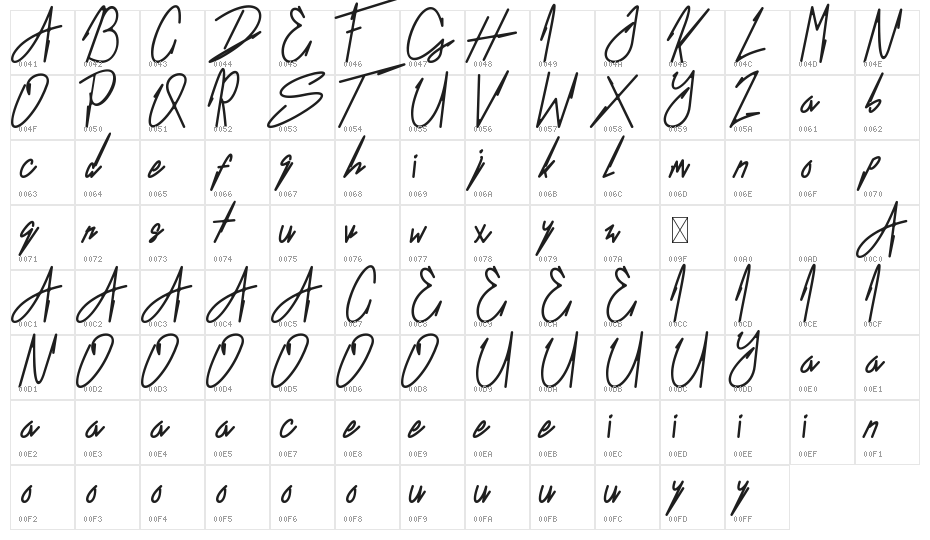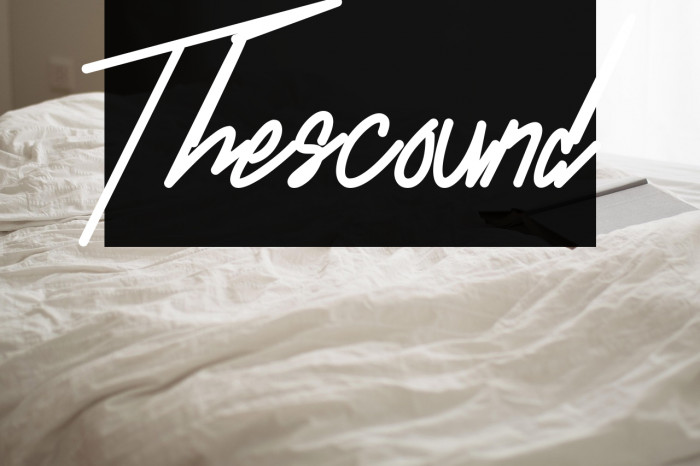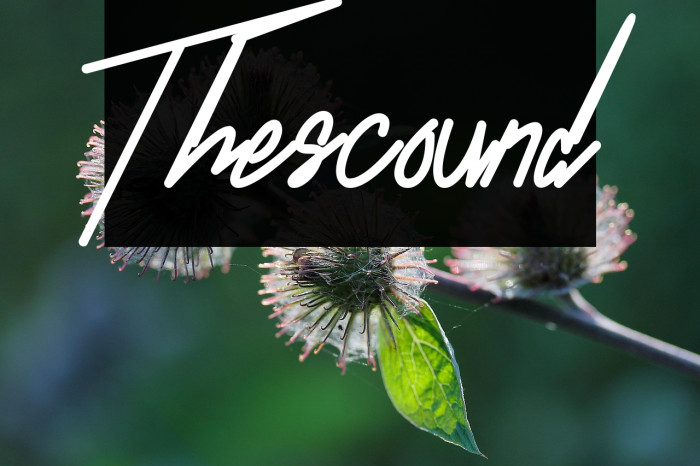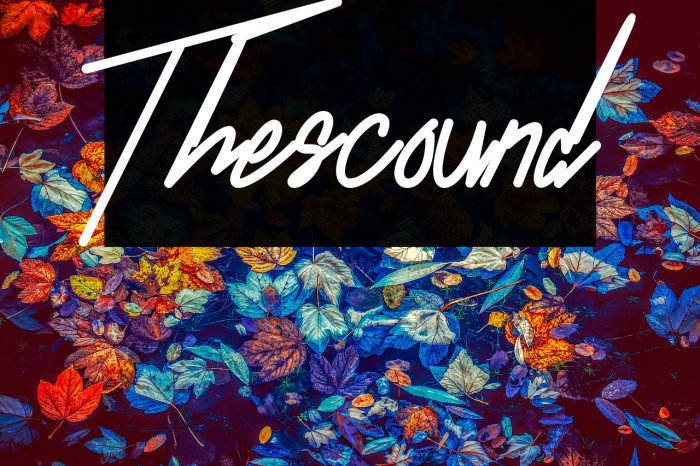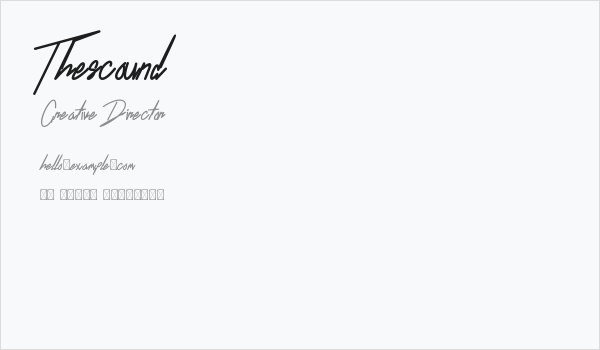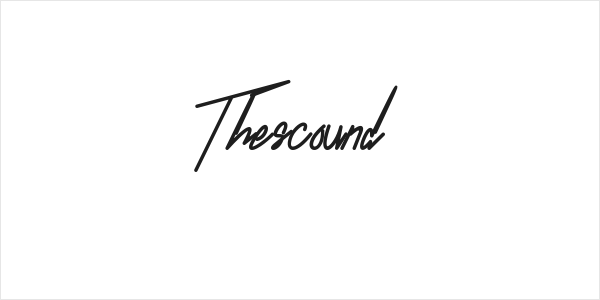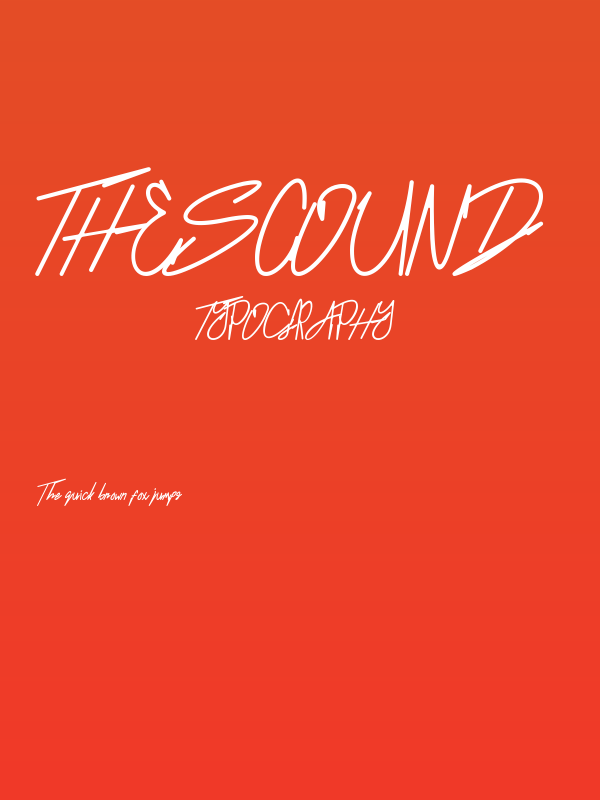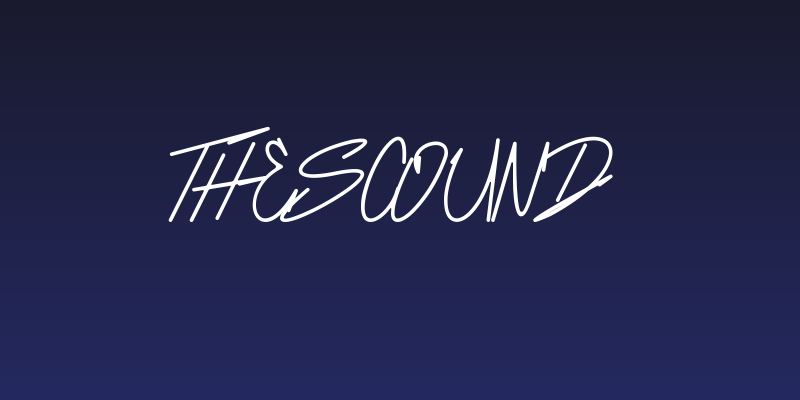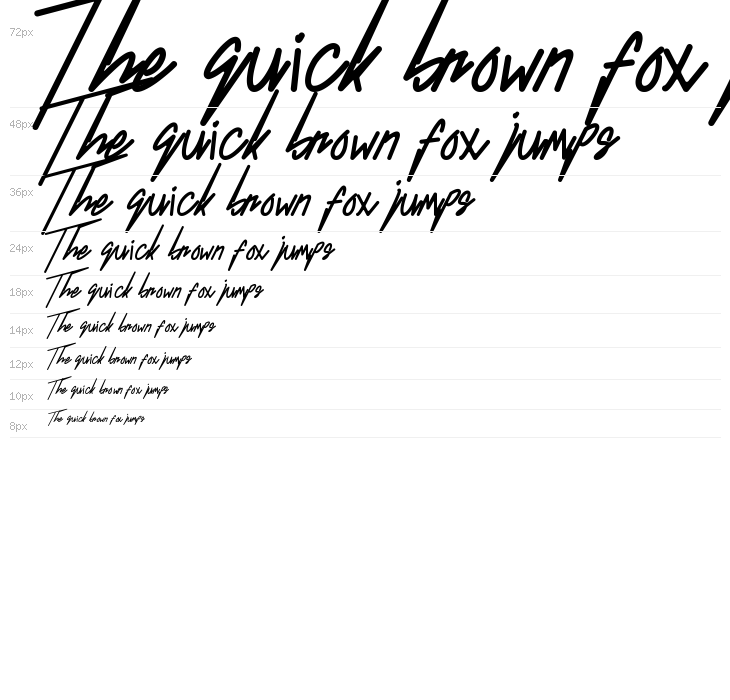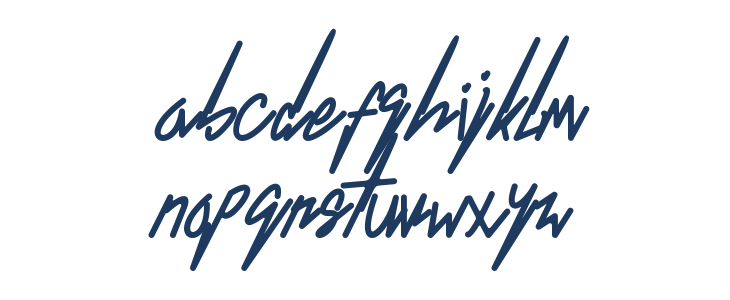
Thescound Font
Thescound Description
This font features a dynamic and expressive handwritten style, characterized by its fluid and cursive letterforms. The strokes are bold and confident, with a noticeable slant that adds a sense of motion and energy. The uppercase letters are tall and elegant, while the lowercase letters maintain a consistent flow, enhancing the overall cohesiveness. The font's unique personality is further emphasized by its irregularities, giving it an authentic, hand-crafted feel. This style is ideal for projects that require a personal touch or a creative flair.
| Proposed Projects | Ideal for creative projects such as greeting cards, invitations, personal branding, and artistic posters. |